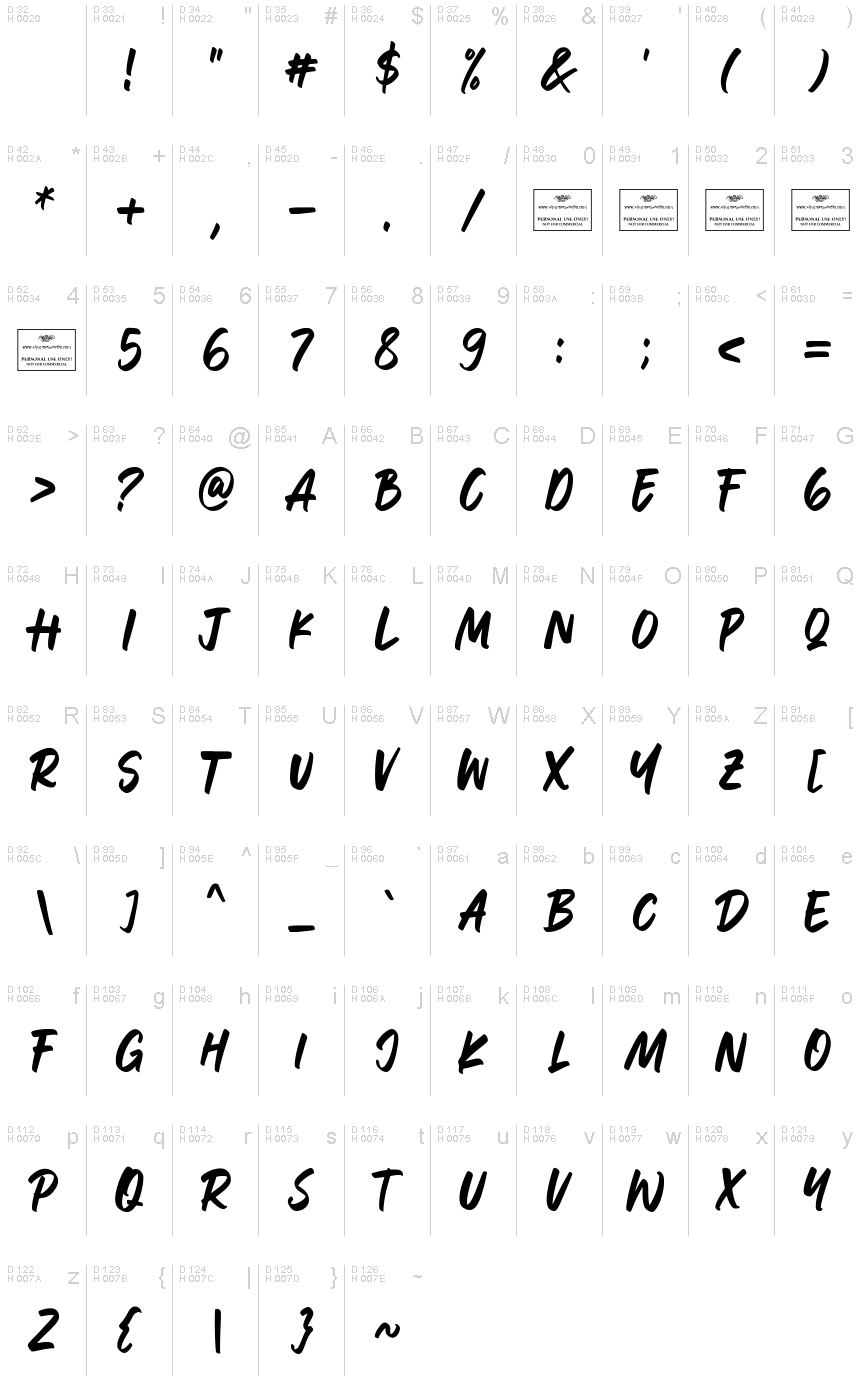
Thunderous Two
Thunderous, a handwritten font created by Alpaprana Studio, exudes a raw, energetic essence that captivates at first glance. With its bold, sweeping strokes and dynamic curves, this font effortlessly conveys a sense of power and movement, evoking a palpable aura of strength and confidence. Its distinctive style seamlessly blends the organic flow of handwritten calligraphy with a touch of modern sophistication, making it a versatile choice for a wide range of design applications.
The Thunderous font's versatility shines through its ability to adapt to diverse contexts, from bold headings and impactful branding to expressive editorial layouts and captivating social media content. Its striking visual presence lends itself particularly well to projects that aim to convey a sense of urgency, passion, or a strong, commanding presence, making it an excellent choice for headers, titles, and attention-grabbing elements. Thunderous' unique character is sure to elevate any design, leaving a lasting impression on the viewer.